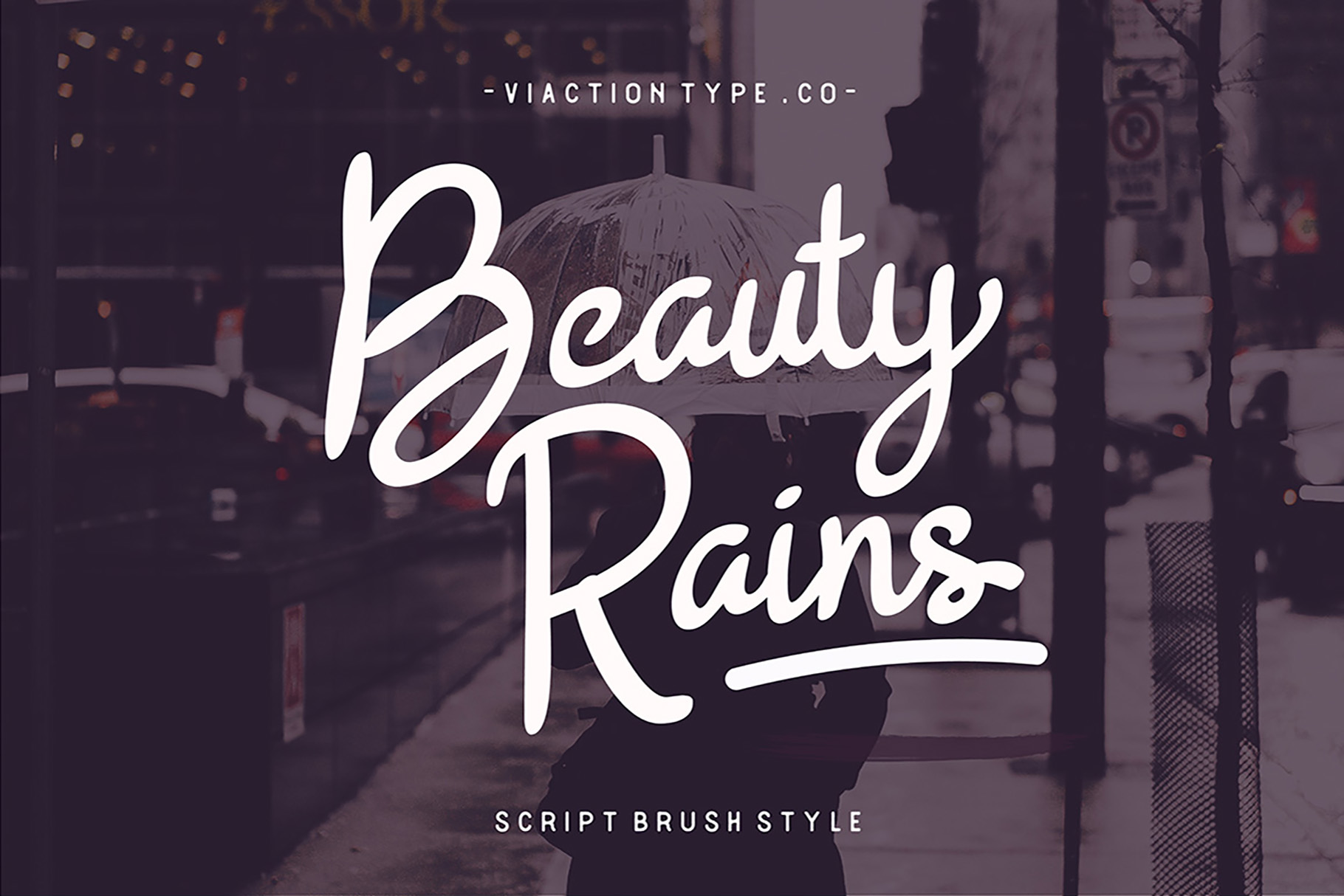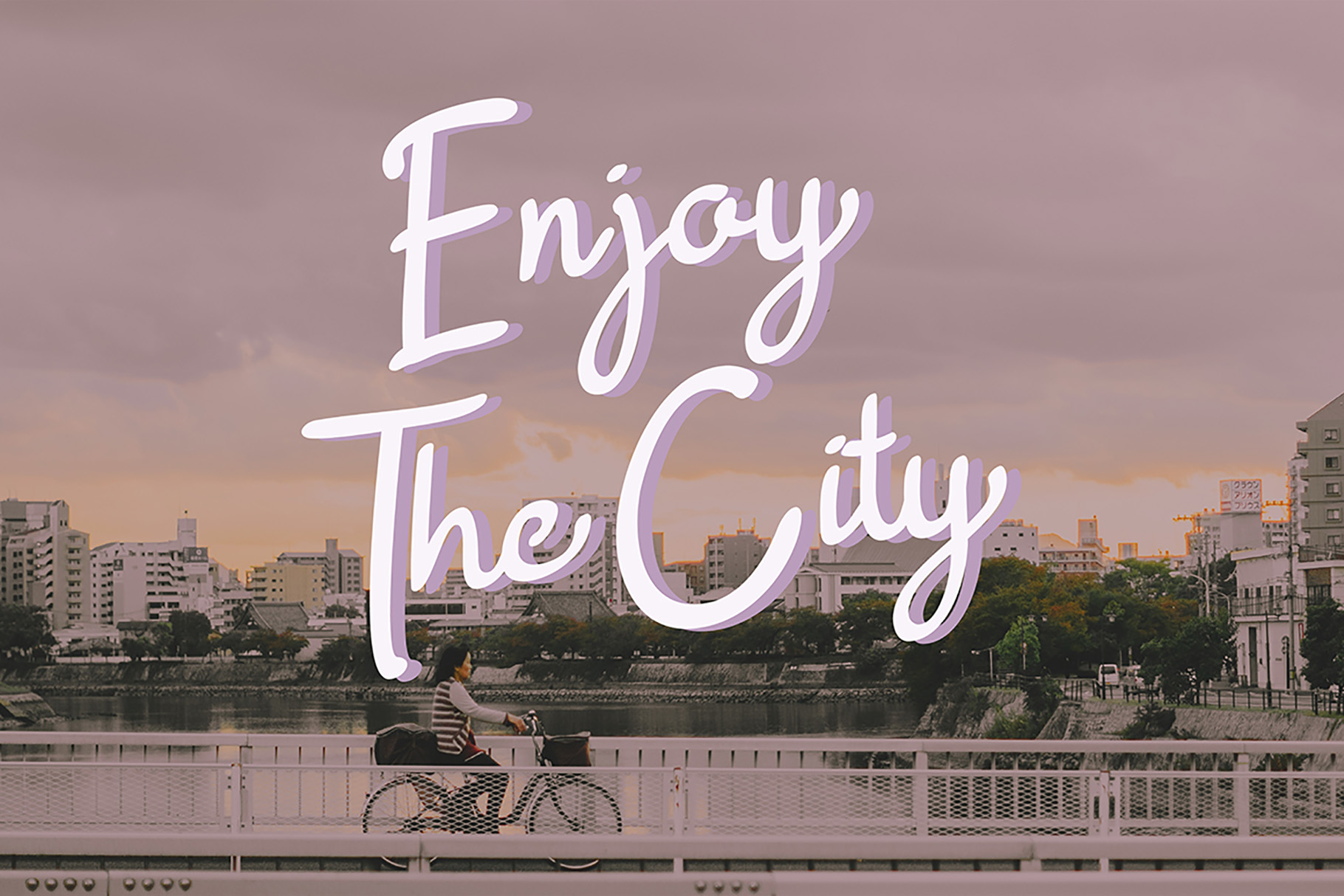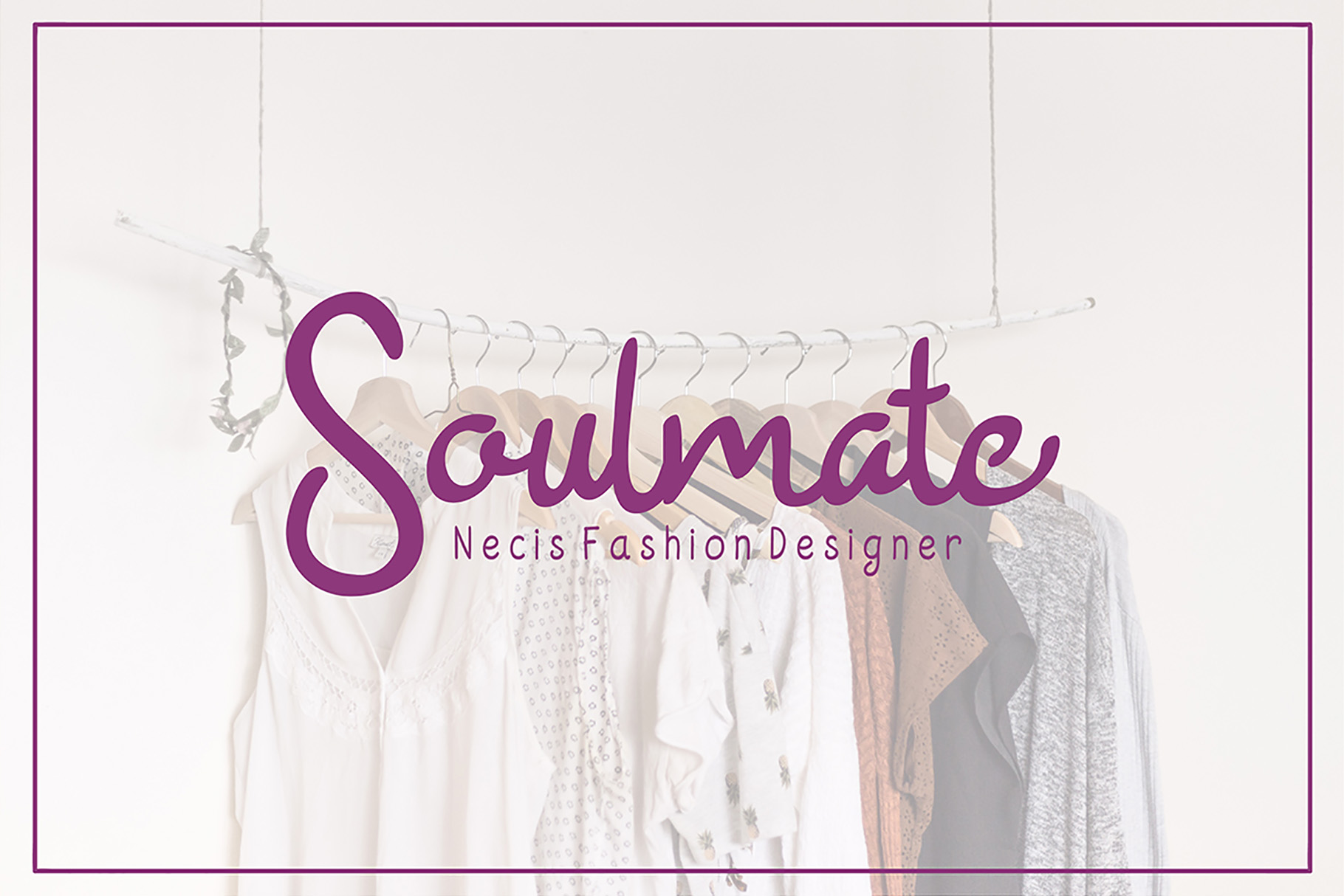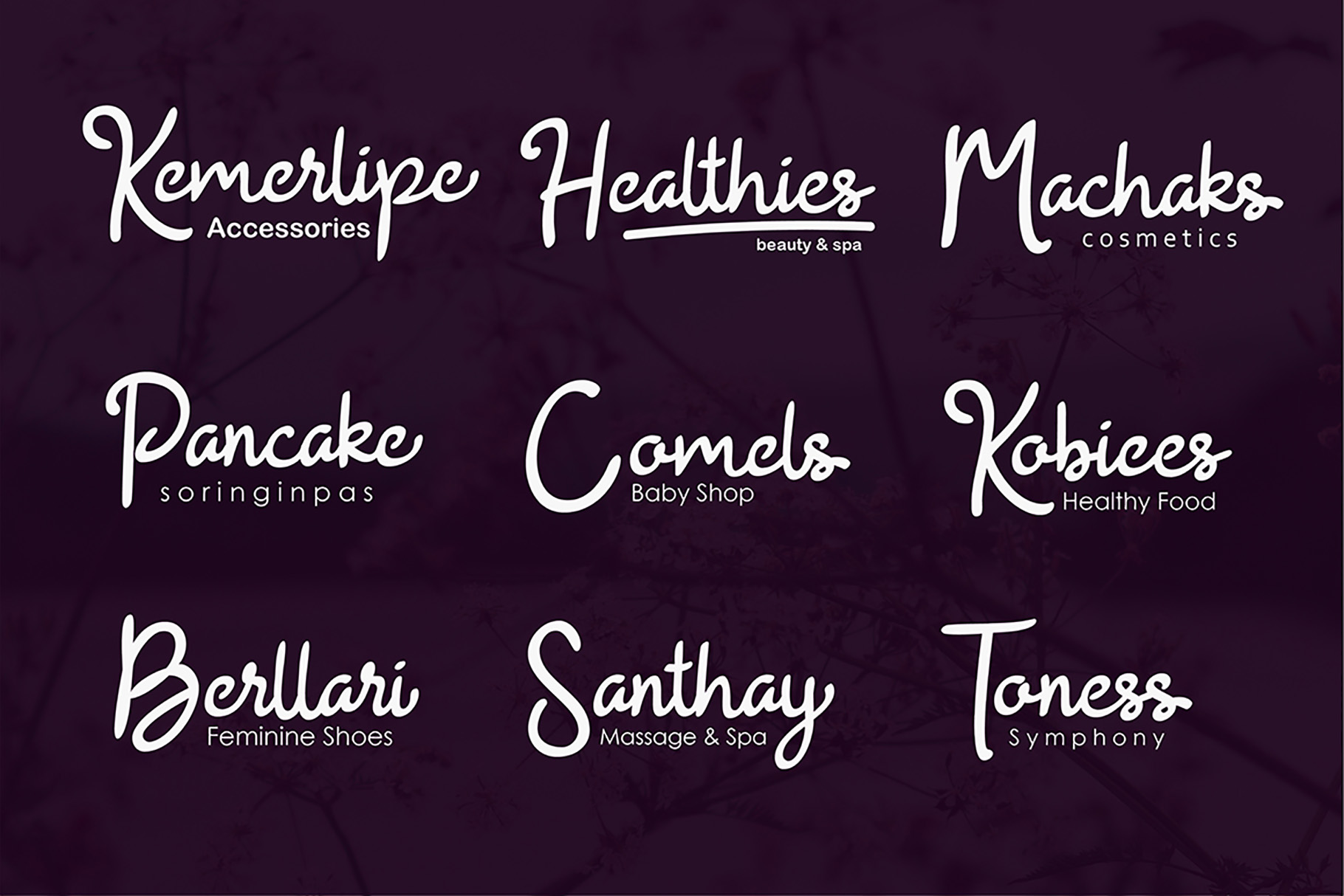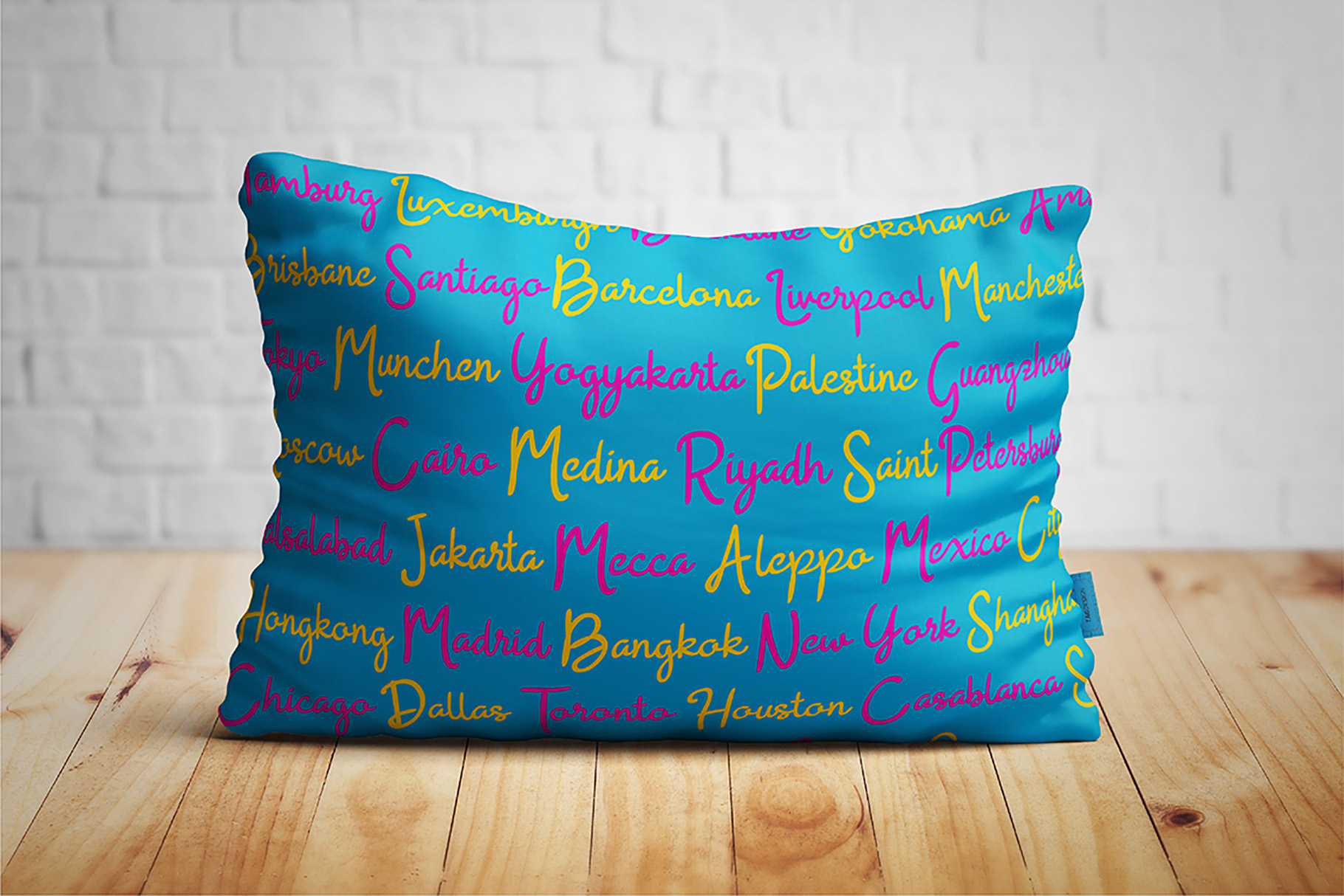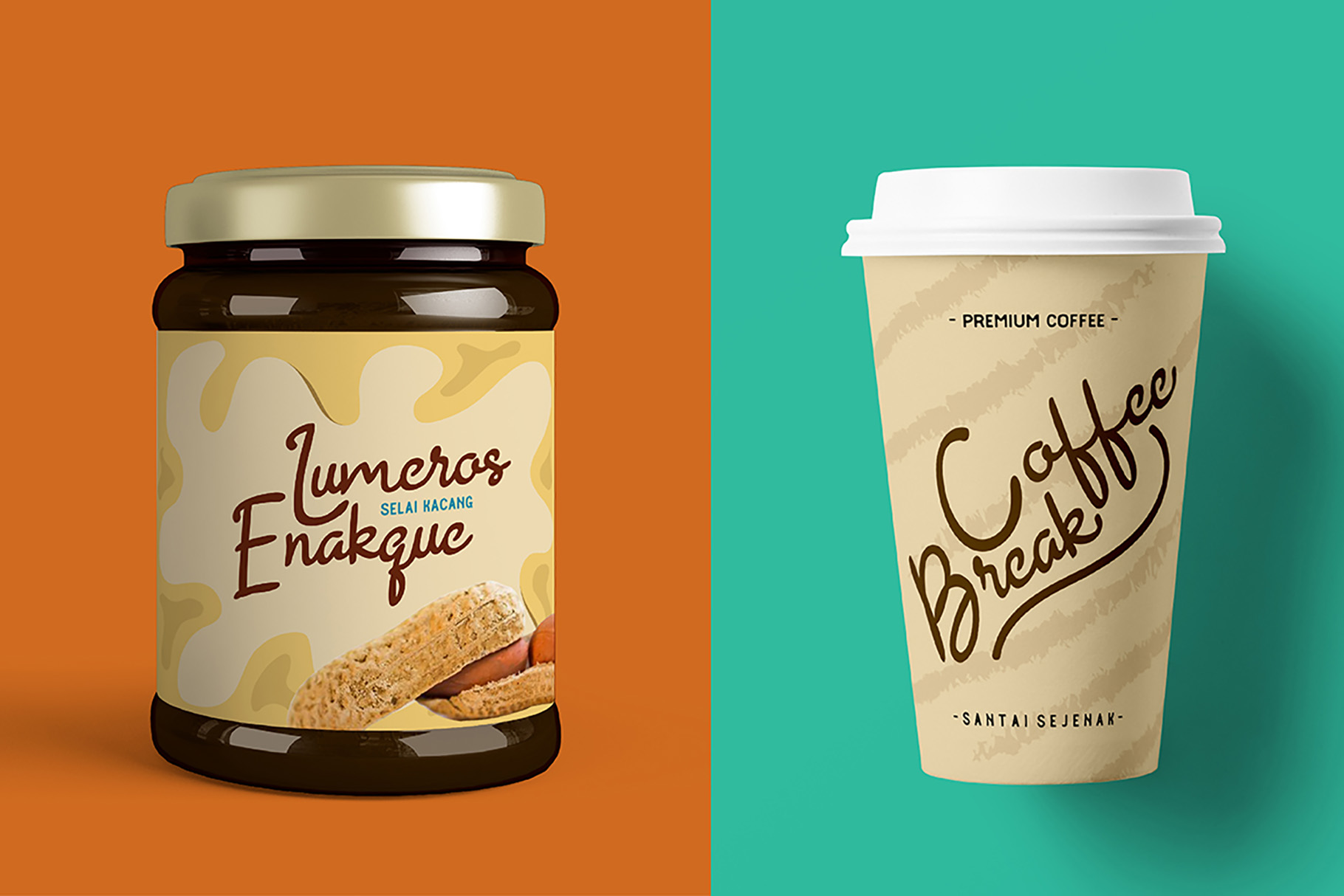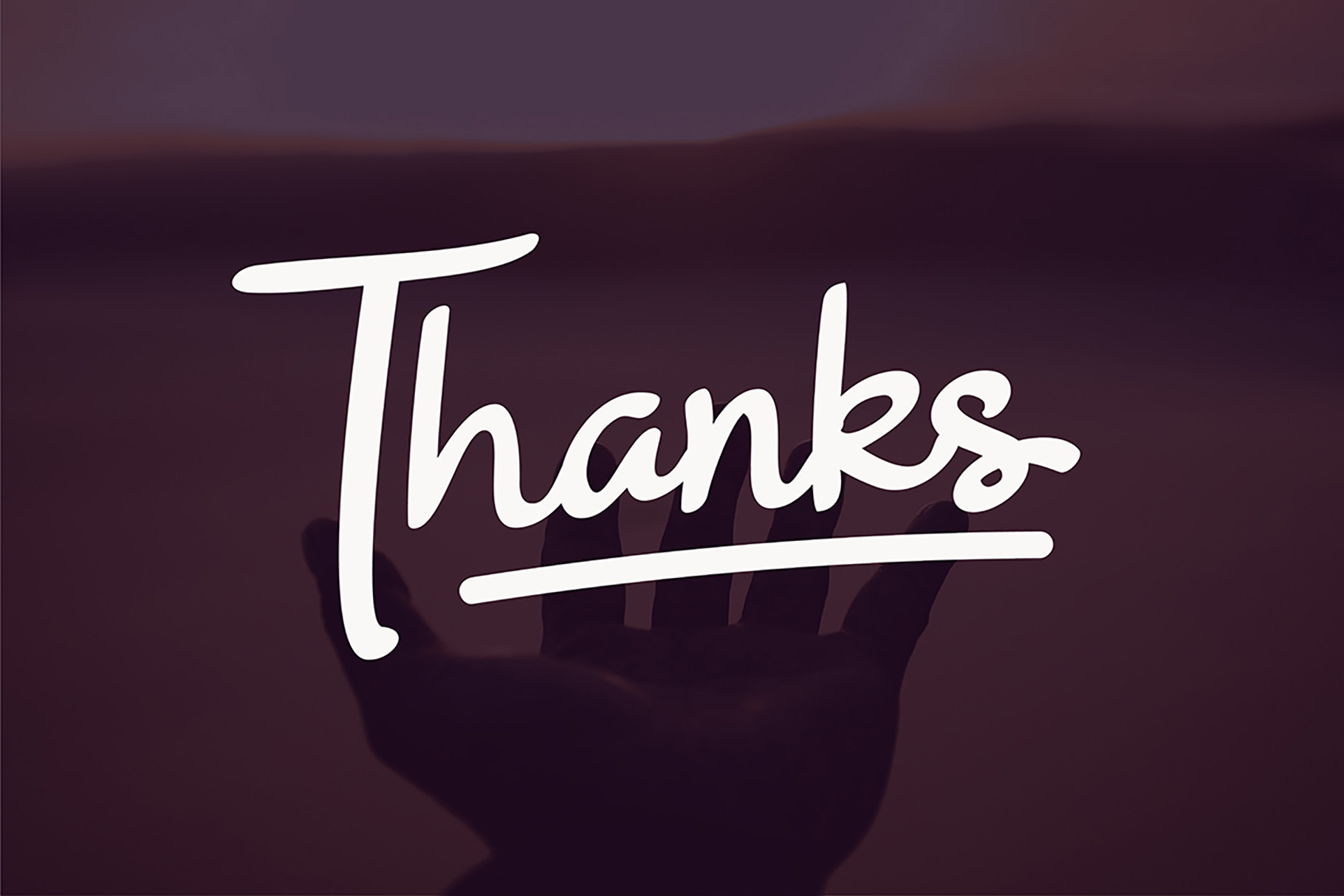
Beauty Rains Font
About Beauty Rains Font
The Beauty Rains typeface contains a original handwriting brush style. It has a natural, stunning feel.
It is suitable for boutique designs, photography layovers, magazine headlines, quotes, business cards and much more!